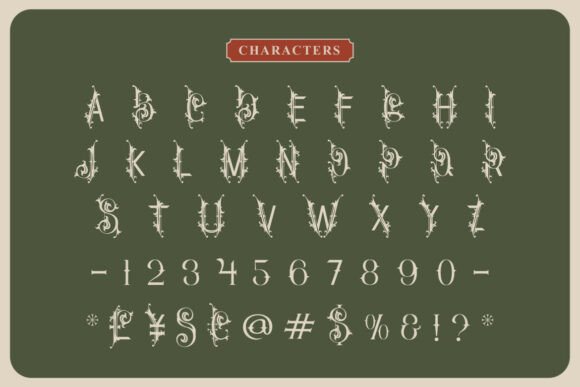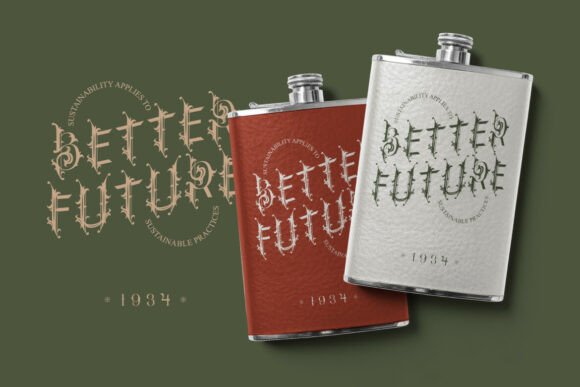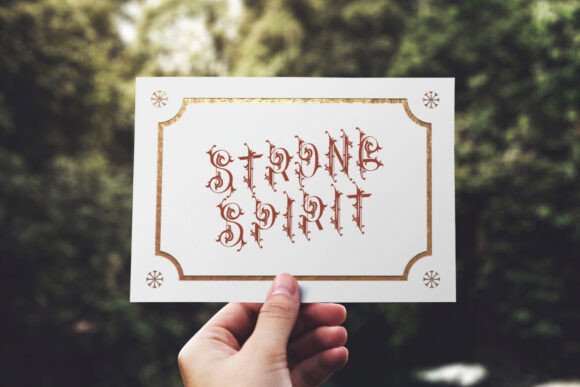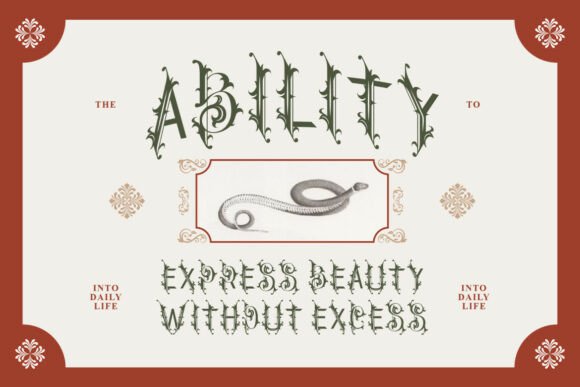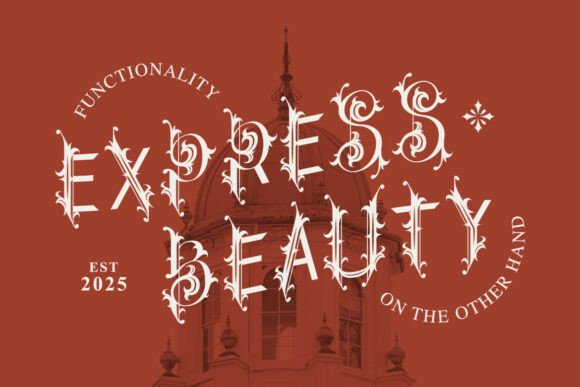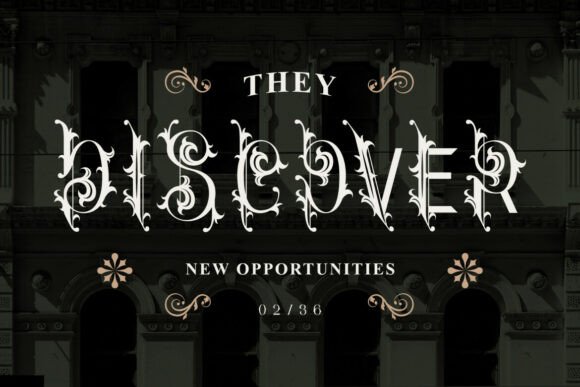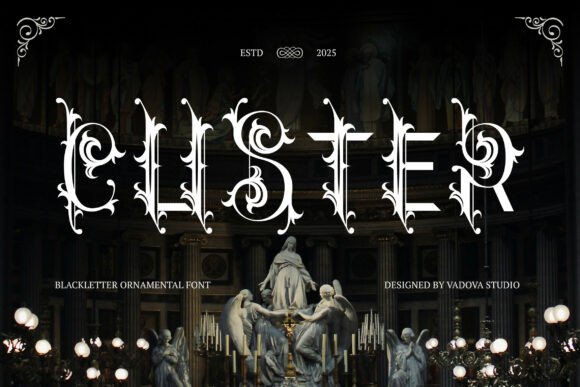
Discover the Majestic Clister Font: Elevate Your Designs with Cathedral Grandeur
Step into a world of breathtaking beauty and timeless elegance with Clister, a stunning display typeface that embodies the essence of cathedral grandeur. This magnificent font is meticulously crafted to evoke a sense of reverence and sophistication, making it the perfect choice for designers seeking to create a lasting impression.
The Inspiration Behind Clister
Clister’s design is rooted in the classic Blackletter letterforms, masterfully infused with rhythmic, hand-drawn thorny accents and intricate baroque flourishes that bloom from the terminals. This unique blend of traditional and ornate elements gives Clister its distinctive “sacred-and-sharp” soul, setting it apart from other typefaces.
Key Features of Clister Font
- Heavy Decorative Weight: Clister boasts a robust and commanding presence, making it ideal for headlines, titles, and statements that demand attention.
- Prestigious Personality: This font exudes an air of sophistication and refinement, perfect for high-end branding, luxury goods, and editorial projects.
- Intricate Details: The hand-drawn thorny accents and baroque flourishes add a level of intricacy and craftsmanship to Clister, making it a true masterpiece.
Perfect Applications for Clister Font
Clister’s versatility and grandeur make it suitable for a wide range of applications, including:
- Independent Heritage Branding: Clister’s classic, timeless elegance makes it an excellent choice for brands seeking to evoke a sense of tradition and heritage.
- High-End Spirit Labels: The font’s luxurious and sophisticated personality is well-suited for premium spirit labels, adding a touch of refinement and exclusivity.
- Gothic Editorial Layouts: Clister’s dramatic and ornate features make it a natural fit for editorial projects with a gothic or mystical theme.
- High-Impact Social Media Headers: The font’s bold and attention-grabbing presence makes it perfect for social media headers that demand attention and convey a sense of authority.
Why Choose Clister Font?
With Clister, you can elevate your designs to new heights and create a lasting impression on your audience. This exceptional typeface offers:
- Unparalleled Versatility: Clister’s adaptability makes it suitable for a wide range of applications, from branding and advertising to editorial and packaging.
- Instant Recognition: The font’s distinctive and ornate features ensure instant recognition, setting your brand or project apart from the competition.
- Timeless Elegance: Clister’s classic design ensures that your work will remain stylish and relevant for years to come, avoiding the pitfalls of fleeting trends.
Clister Font is a masterpiece of typographic design, offering a unique blend of classic Blackletter letterforms, intricate details, and prestigious personality. With its heavy decorative weight, ornate features, and adaptability, Clister is the premier choice for designers seeking to create a lasting impression. Whether you’re working on independent heritage branding, high-end spirit labels, gothic editorial layouts, or high-impact social media headers, Clister is the perfect tool to elevate your designs and convey a sense of cathedral grandeur.